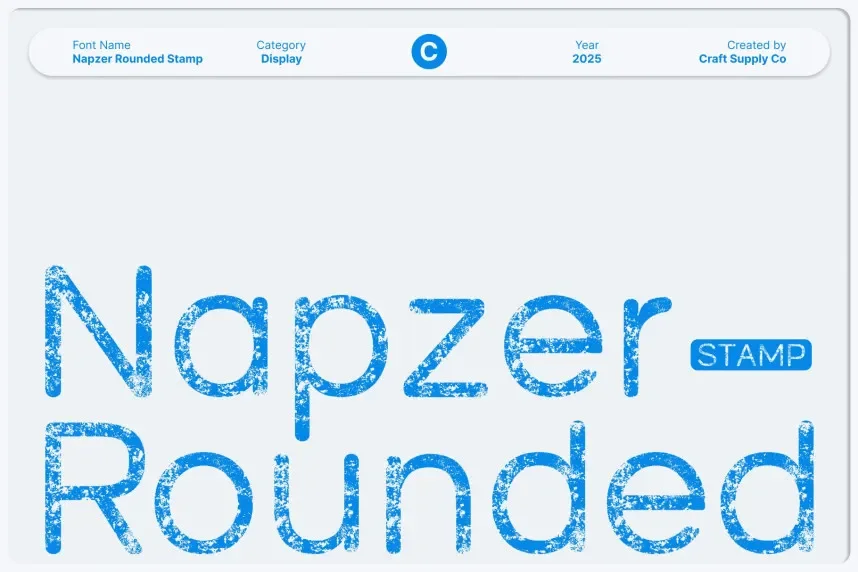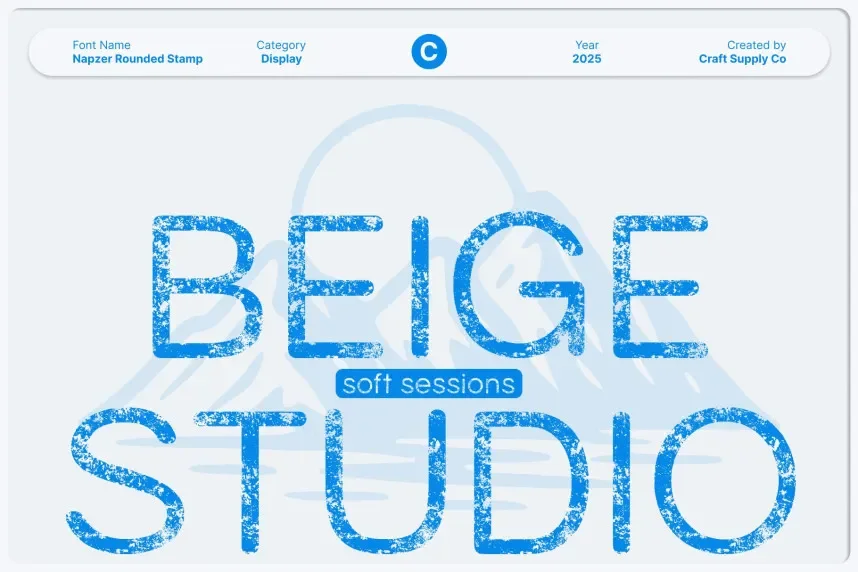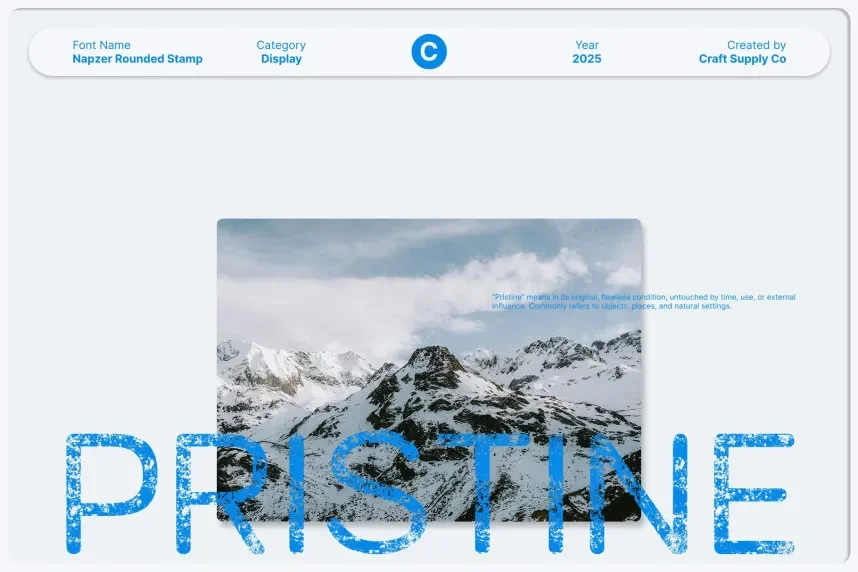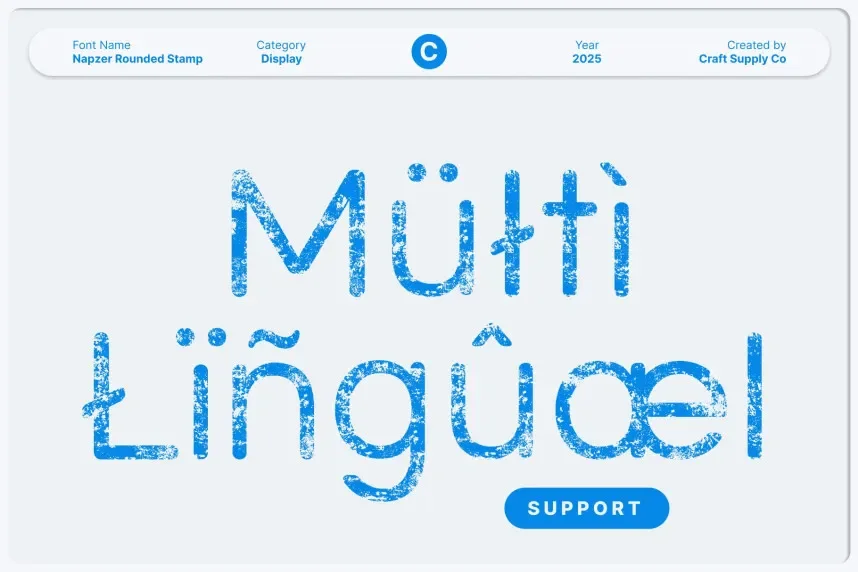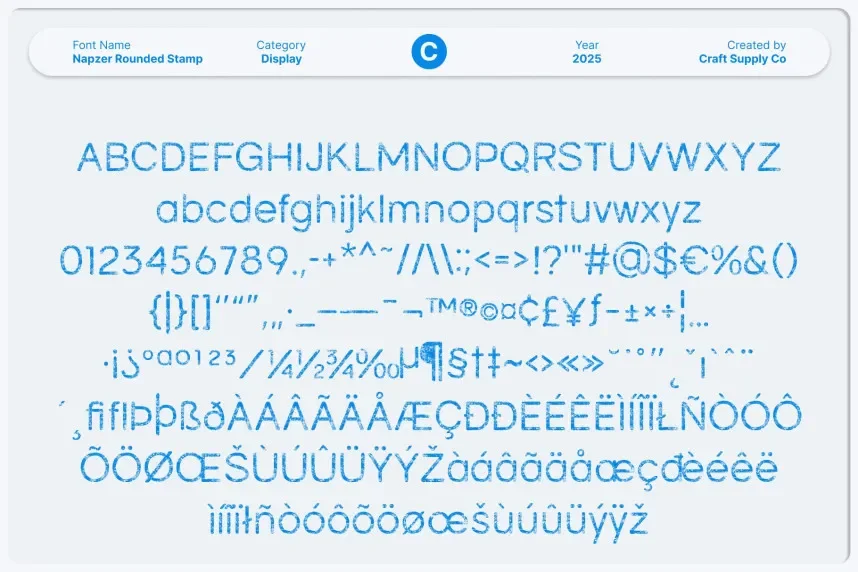
Napzer Rounded Stamp Font addresses a common branding issue: using stamped typography without harsh or damaged edges. Designers often need a display font that keeps a handcrafted feel while remaining readable for logos, packaging, and social media graphics across print and screen.
Napzer Rounded Stamp Font is a rounded stamp display font. The letterforms use thick strokes with soft corners and light texture, reducing visual noise often found in distressed fonts. Stroke contrast stays low, and spacing remains consistent, which supports clarity at medium and large sizes. The rounded terminals help the font feel approachable while keeping a stamped impression.